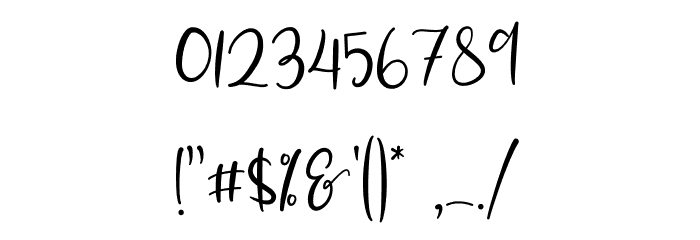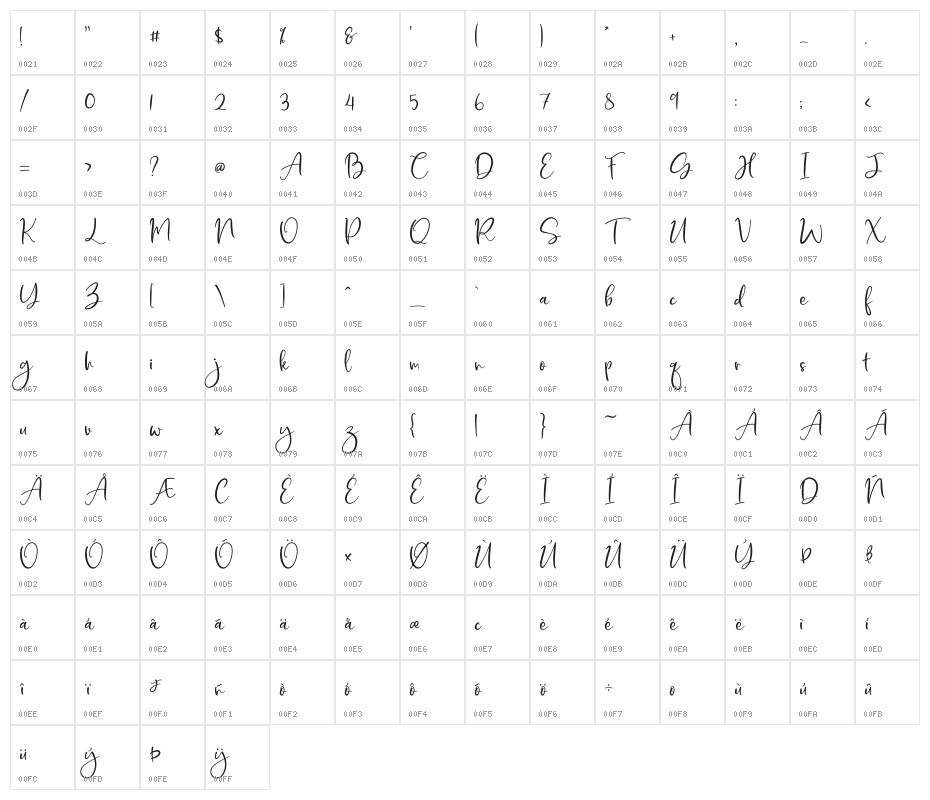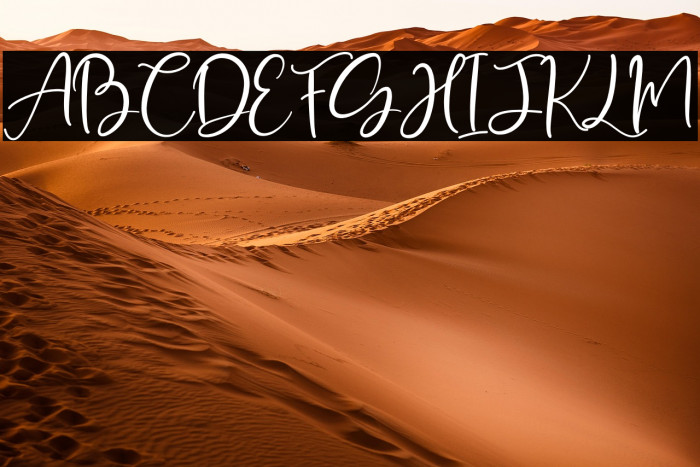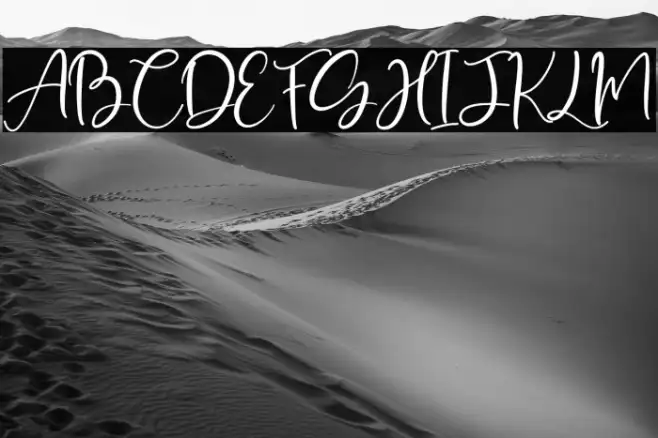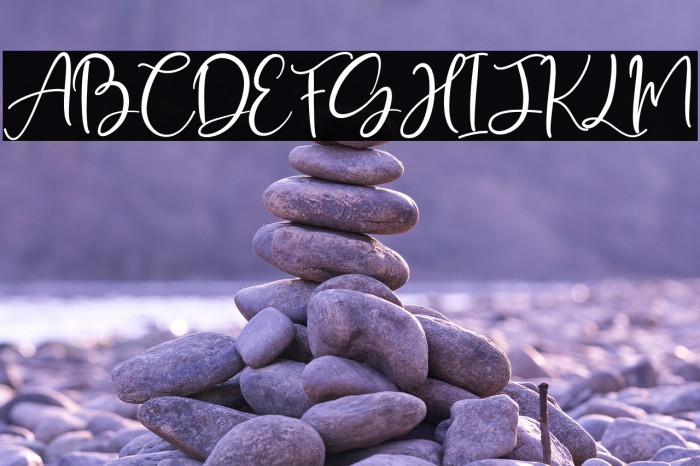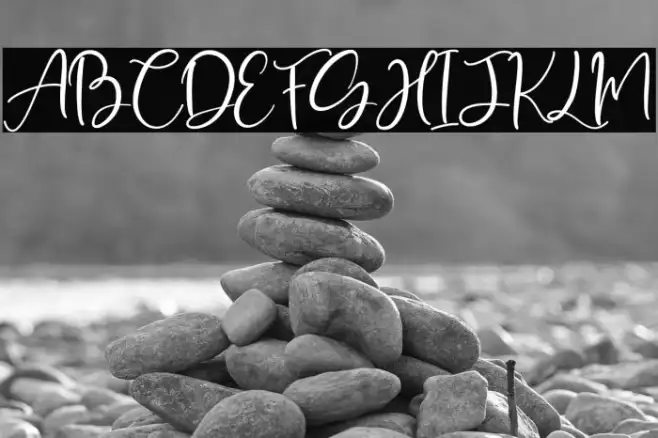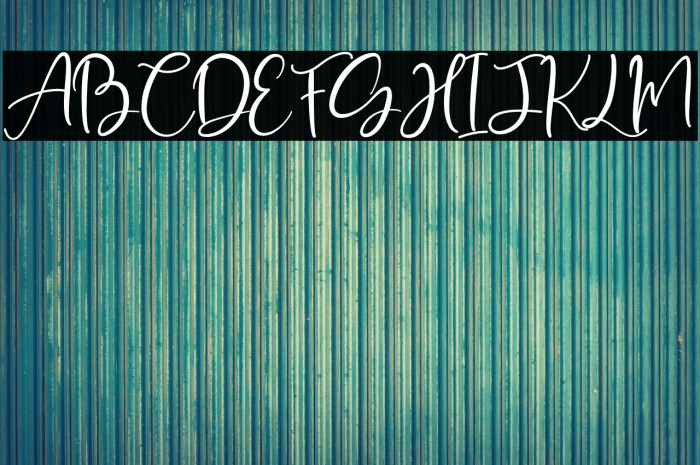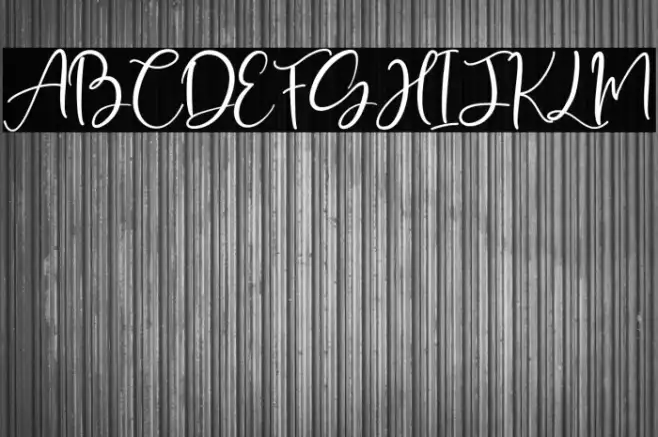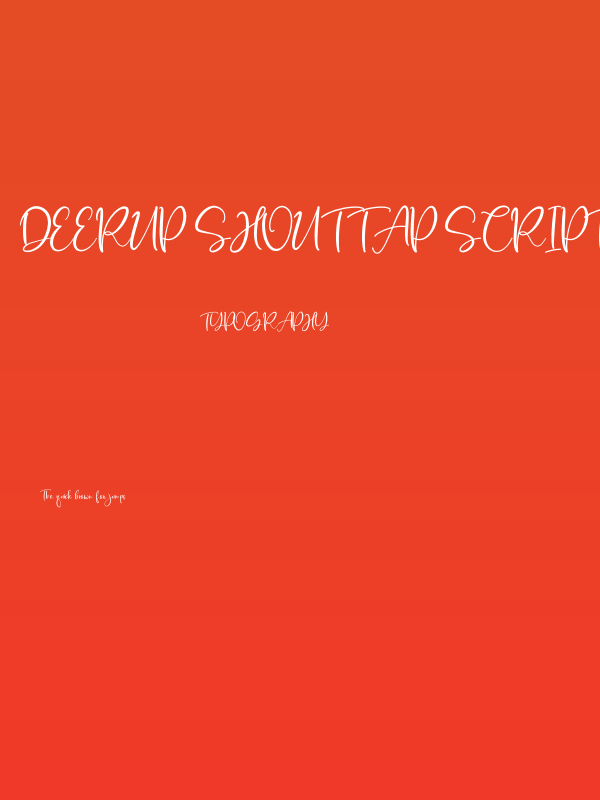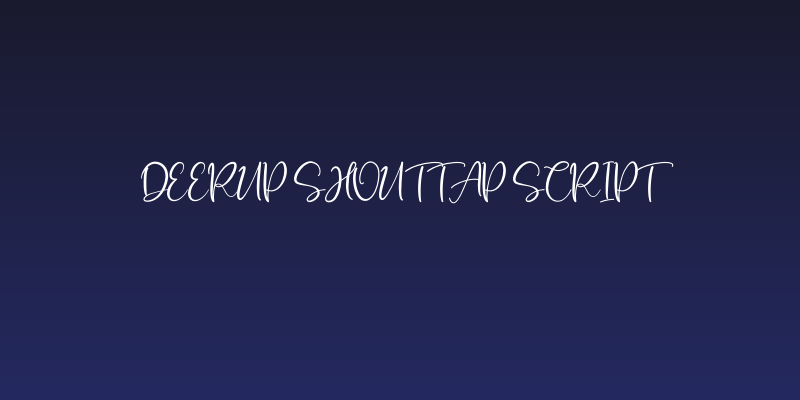
DeerUp Shouttap Script Font
DeerUp Shouttap Script Description
This font exudes a lively and expressive character with its flowing, cursive script style. The letters are elegantly connected, creating a sense of movement and fluidity. The uppercase letters are bold and prominent, while the lowercase letters maintain a graceful and delicate appearance. The numerals and special characters are consistent with the overall script style, adding a cohesive look to the font. The strokes vary in thickness, providing a dynamic contrast that enhances readability while maintaining an artistic flair. This font is perfect for projects that require a personal touch or a creative, handwritten feel.
| Use Case | Logos, Invitations, Creative projects |
| Proposed Projects | Ideal for wedding invitations, greeting cards, branding, and creative projects requiring a personal touch. |